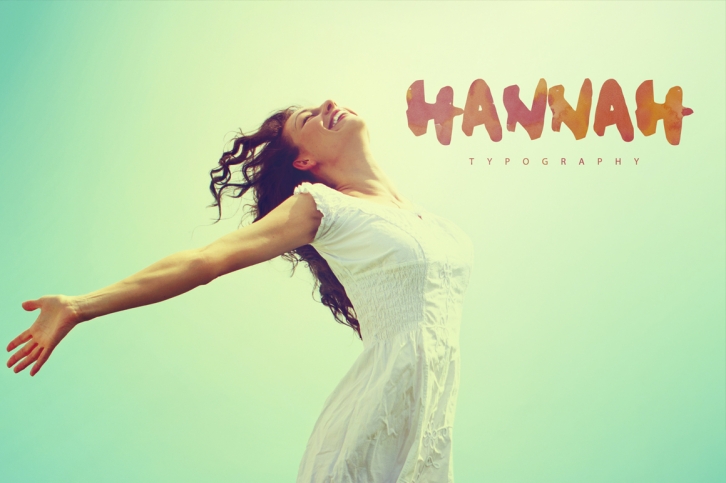
My name is Hannah is a trendy and unique font with an authentic style. It was designed by SmartDesigns and it's a great choice for creative people who need such a font. It was released on March 22, 2016 and the file size is 20.96 MB. My name is Hannah will add an organic vibe to any design idea!